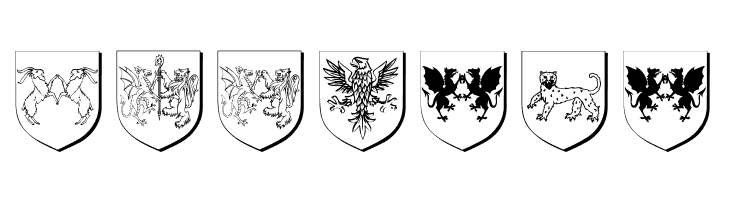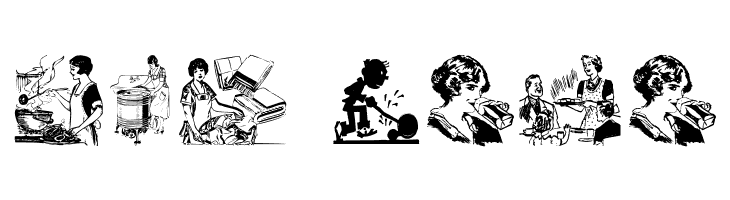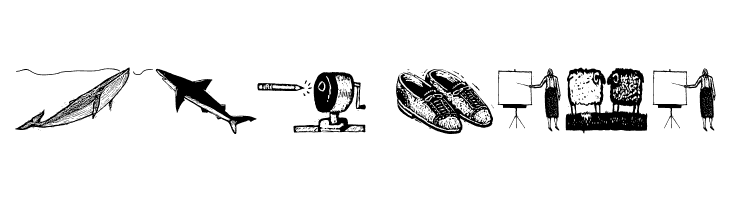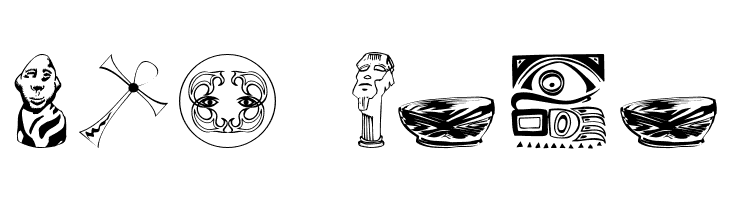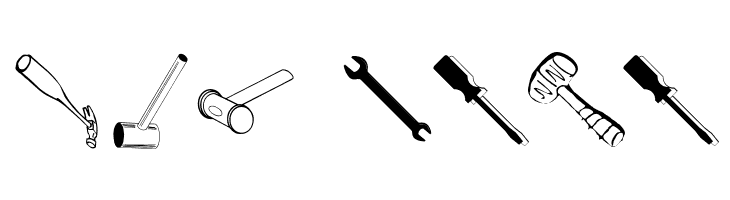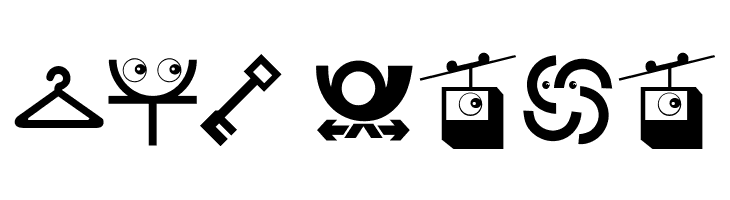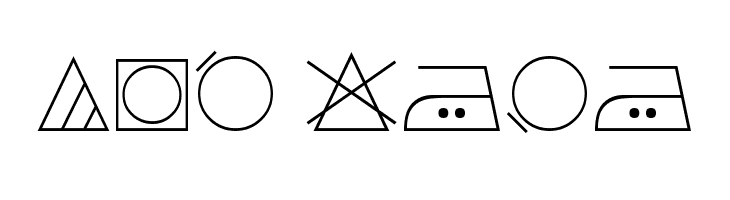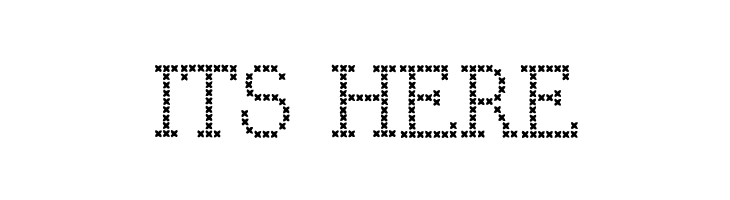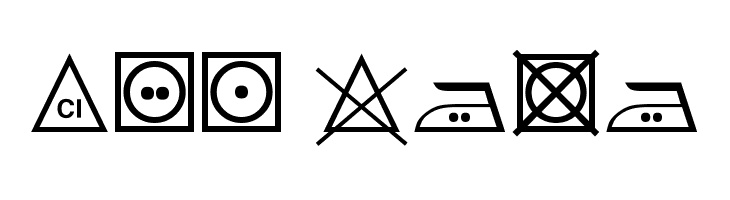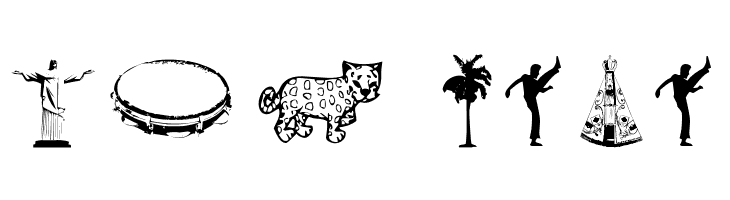
Heraldic shield icon font with detailed medieval motifs.
Illustrative dingbat font with household-themed pictograms.
A pictogram dingbat font with hand-drawn illustrations and landmarks.
A decorative symbol font with artifact and tribal-inspired pictograms.
A tool-themed pictogram font with detailed illustrations of hardware and equipment.
A bold pictogram font with household and geometric icons.
Geometric sans-serif font optimized for clarity and legibility.
A decorative font with a cross-stitch pattern, resembling traditional embroidery.
Functional, icon-based font for wash care and laundry symbols.
A playful dashed cursive font ideal for handwriting education.
Hand-drawn illustrations of sign language alphabet gestures.
A geometric and structured font with clean lines and uniform strokes.
The image features hurricane preparation icons, not a font.
An educational font with dotted lines and arrows for teaching handwriting.
A dotted cursive font designed for handwriting practice.
A dotted line font mimicking handwriting practice sheets, ideal for educational use.
A dotted cursive font designed for handwriting practice and education.
An educational font with dotted lines and directional guides for learning letter formation.
A dotted line font ideal for handwriting practice and educational materials.
A dotted cursive font with directional arrows, perfect for handwriting practice.
A dotted cursive font ideal for handwriting practice.
A diverse set of decorative arrows in multiple hand-drawn and graphic styles.
A diverse collection of creatively styled arrows with decorative elements.
Instructional pictogram font inspired by airline safety cards.